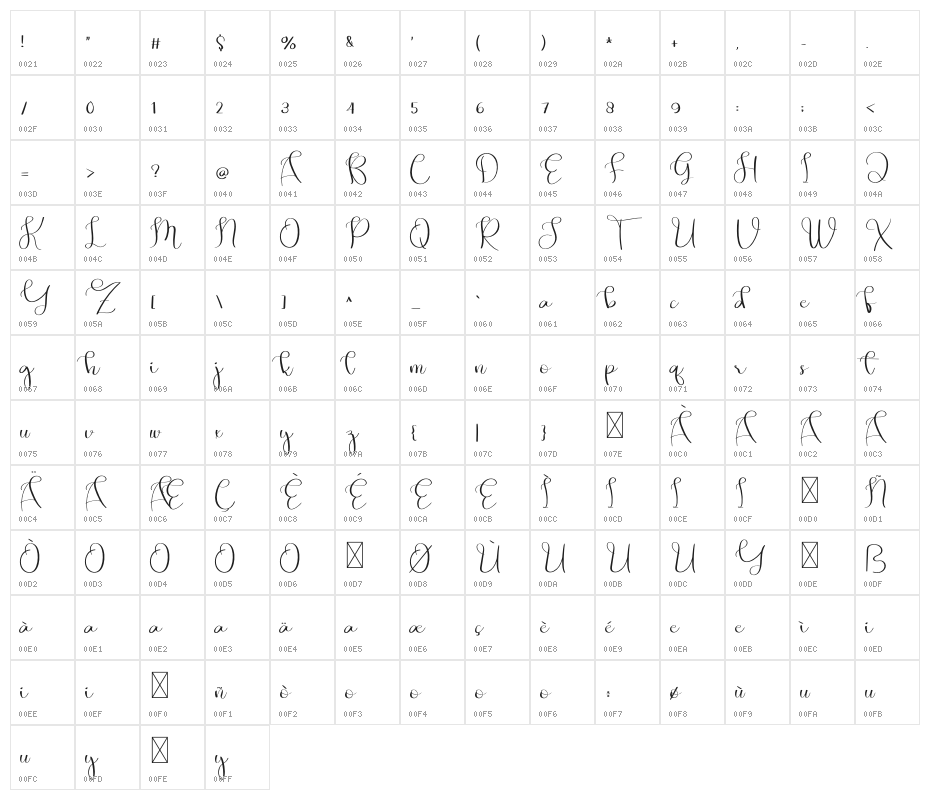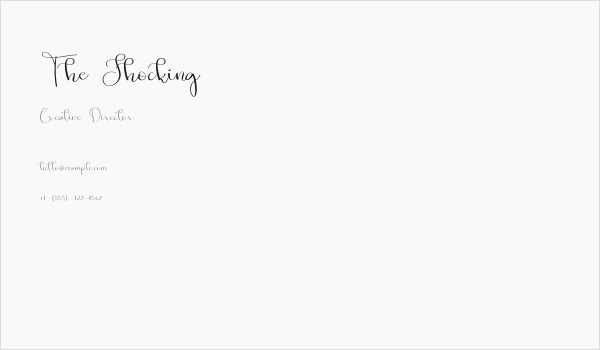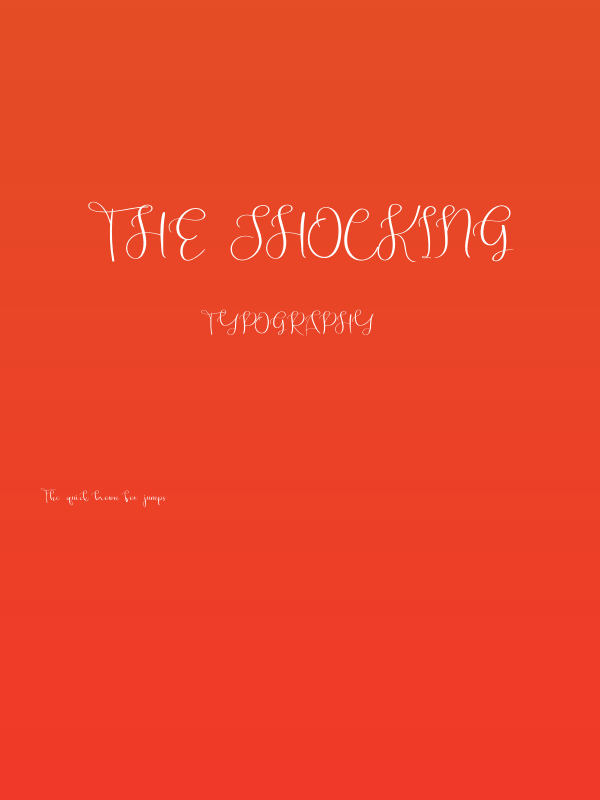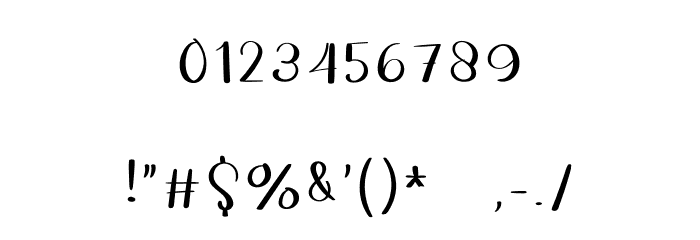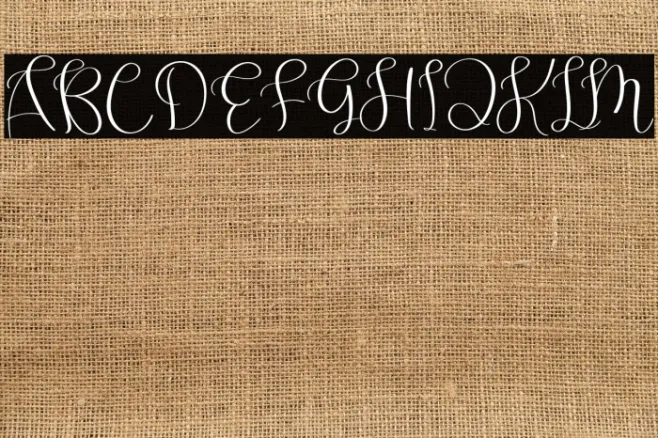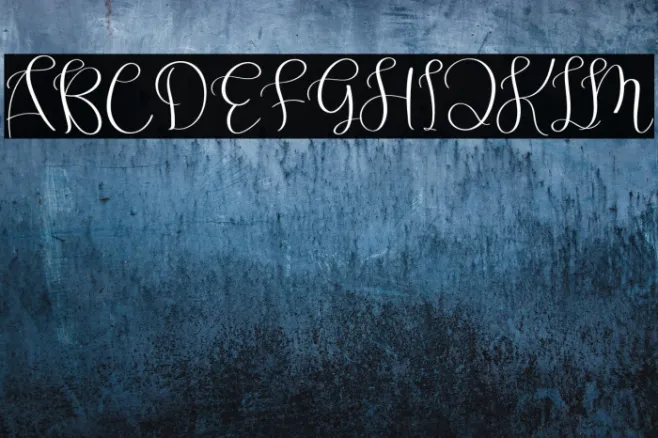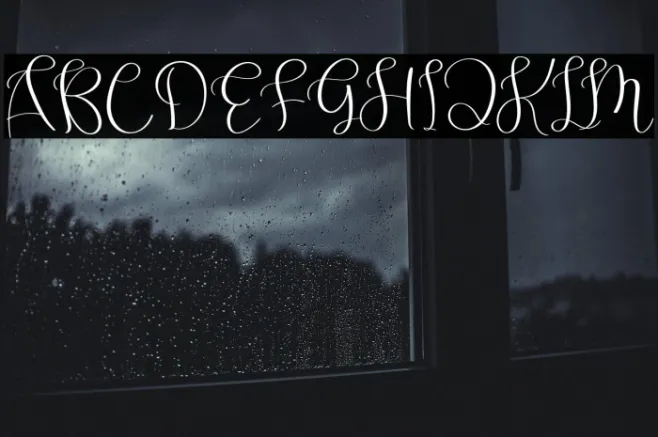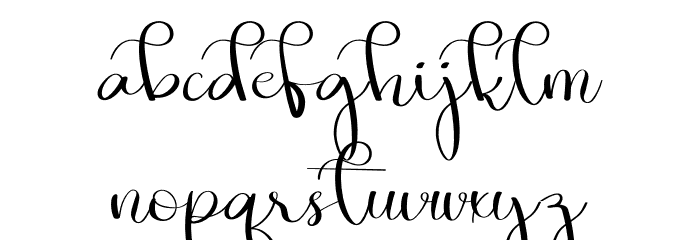
The Shocking Font
The Shocking Description
This font features an elegant and flowing script style, characterized by its intricate loops and swirls. The uppercase letters are tall and graceful, with a slight slant that adds a sense of movement and fluidity. The lowercase letters maintain the same flowing style, with some characters extending below the baseline, adding to the font's dynamic appearance. The numerals are consistent with the overall aesthetic, featuring similar curves and loops. Special characters are designed to blend seamlessly with the letters, maintaining the font's cohesive look. This font is ideal for projects that require a touch of sophistication and elegance.